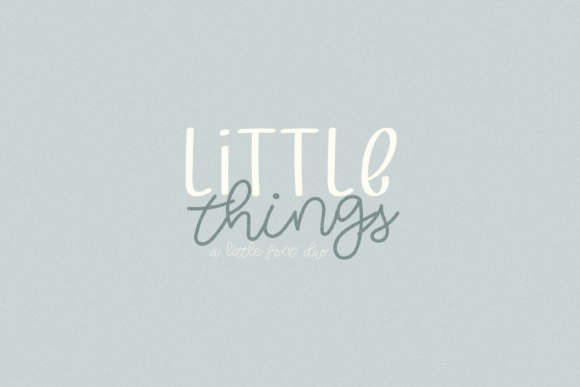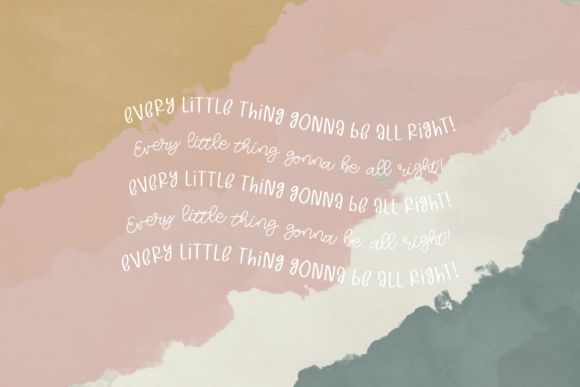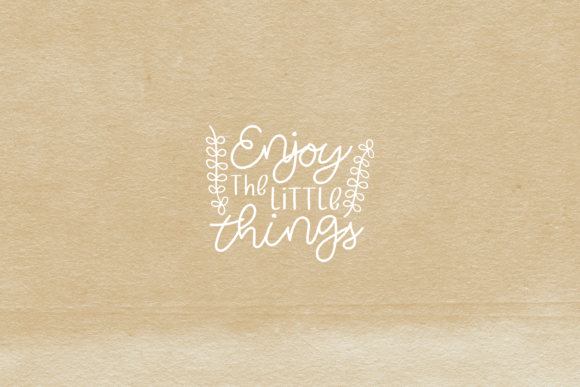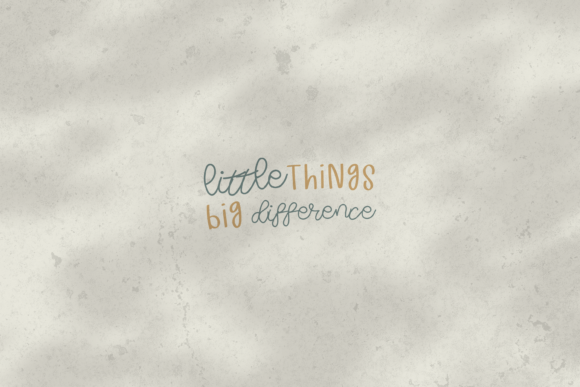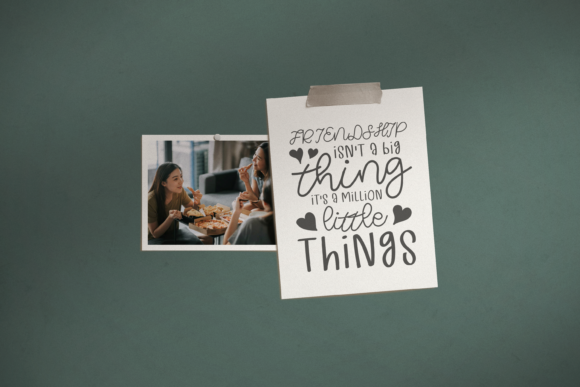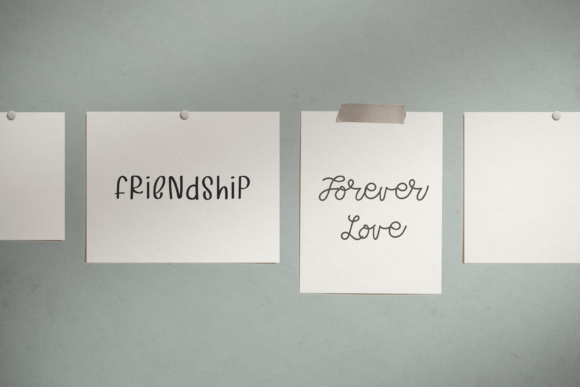
Little Things Duo Font
Little Things Duo is a sweet, dainty and bouncy duo font (sans serif and handwritten). Get inspired by its elegant feel and use it to turn any design project into a standout!
Add this lovely font to your creations and take your designs to the next level!